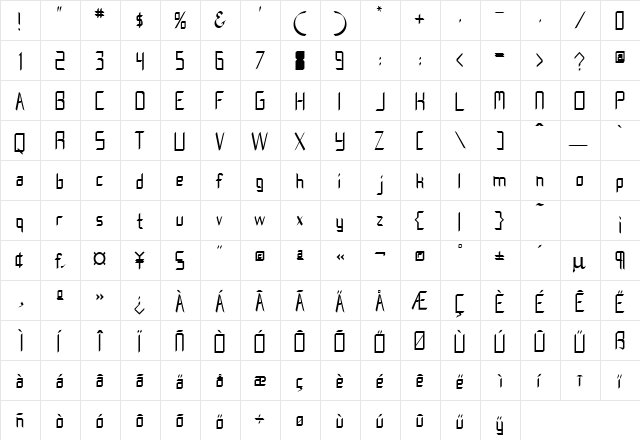
Creedmore Regular
Design Context for Creedmore Typeface
Creedmore takes a measured approach to typography — its balanced proportions and neutral character make it a reliable workhorse for both digital and print work.